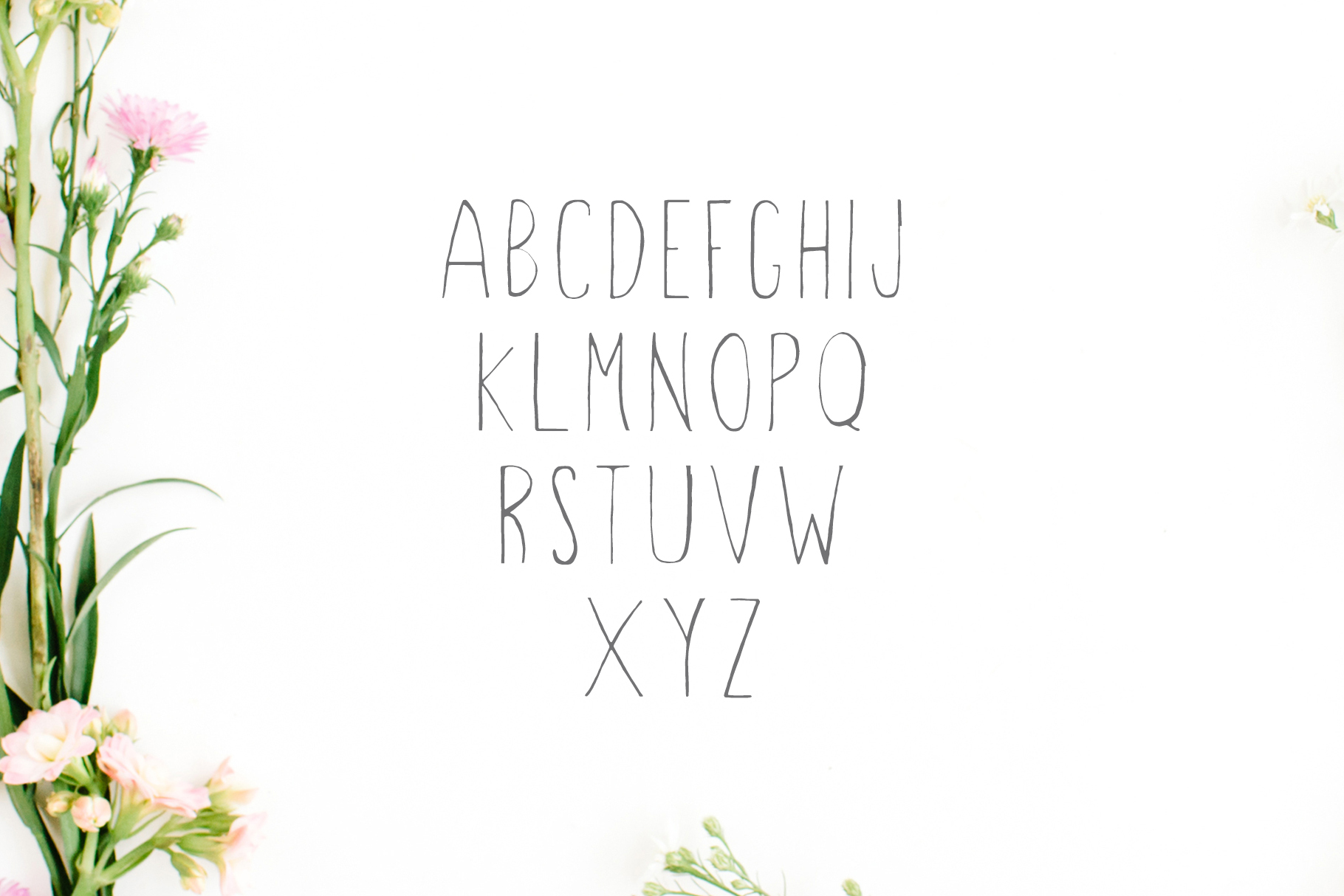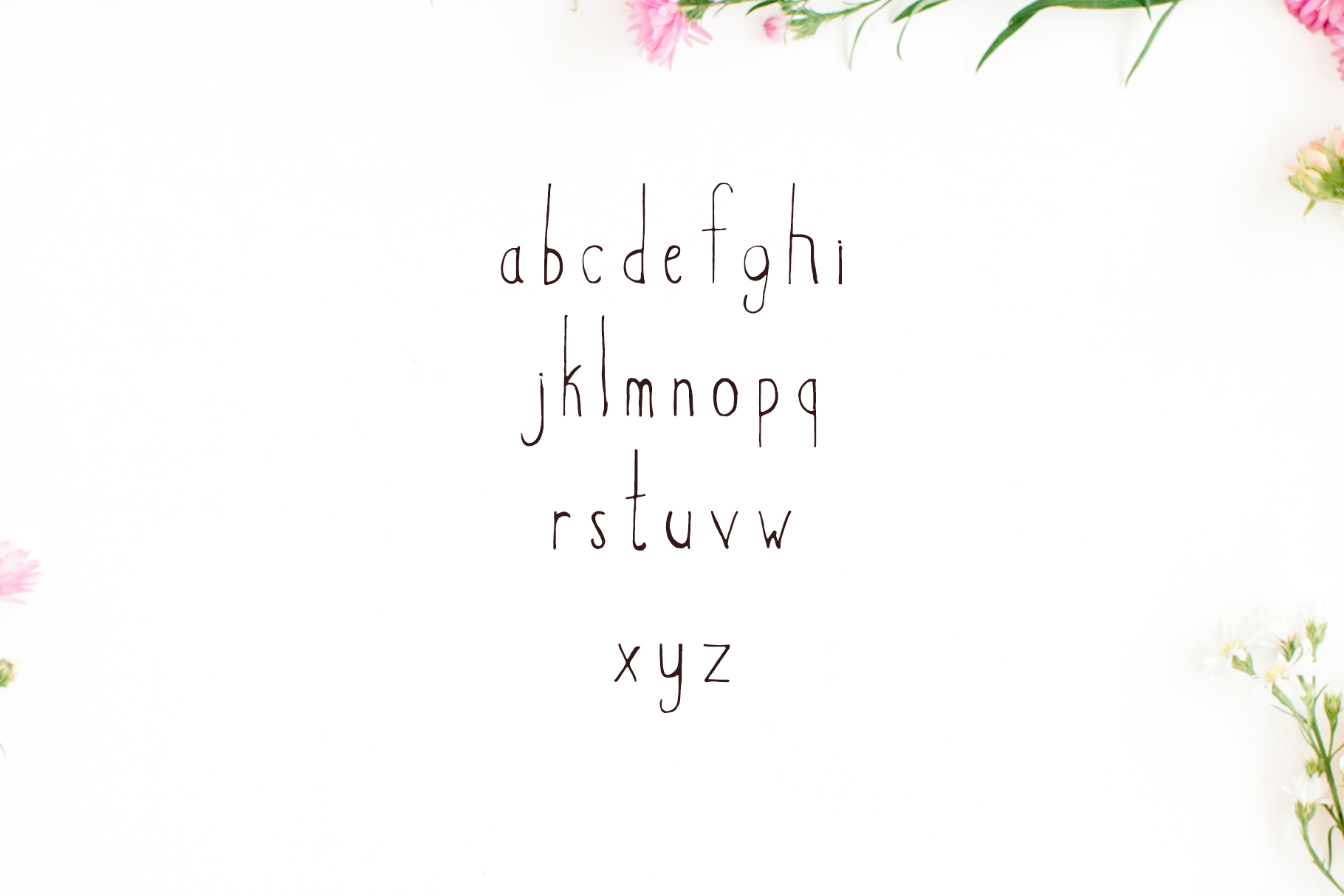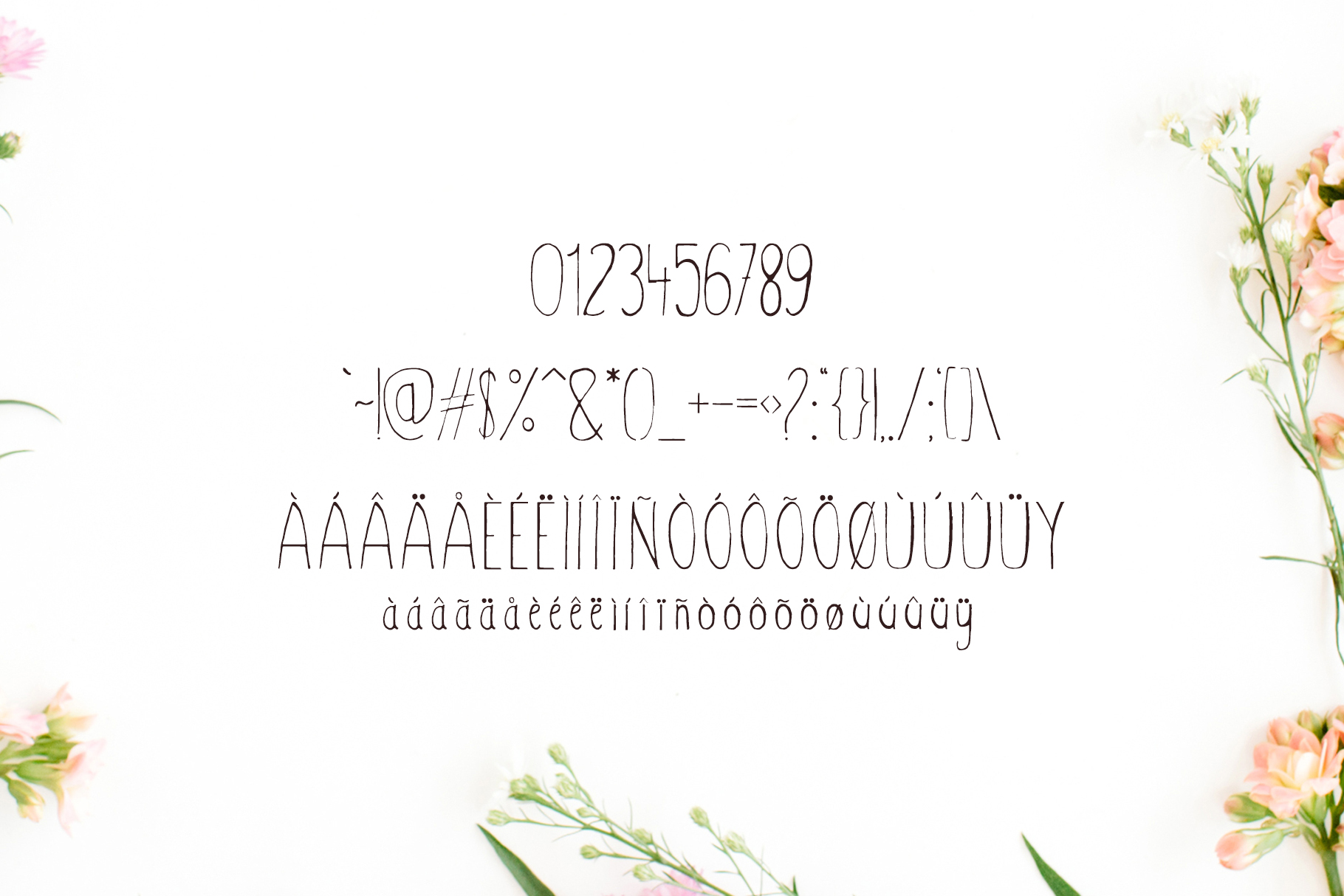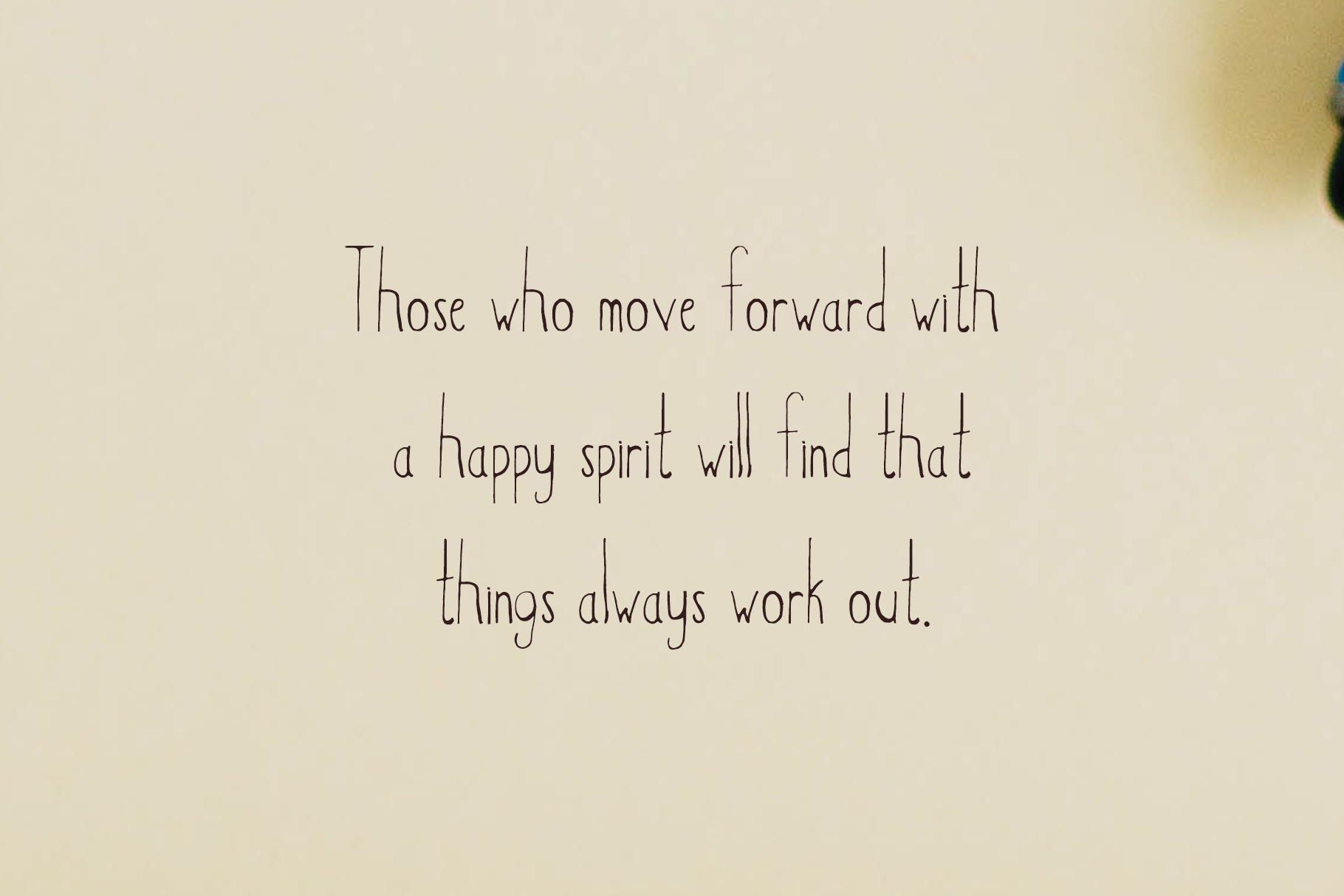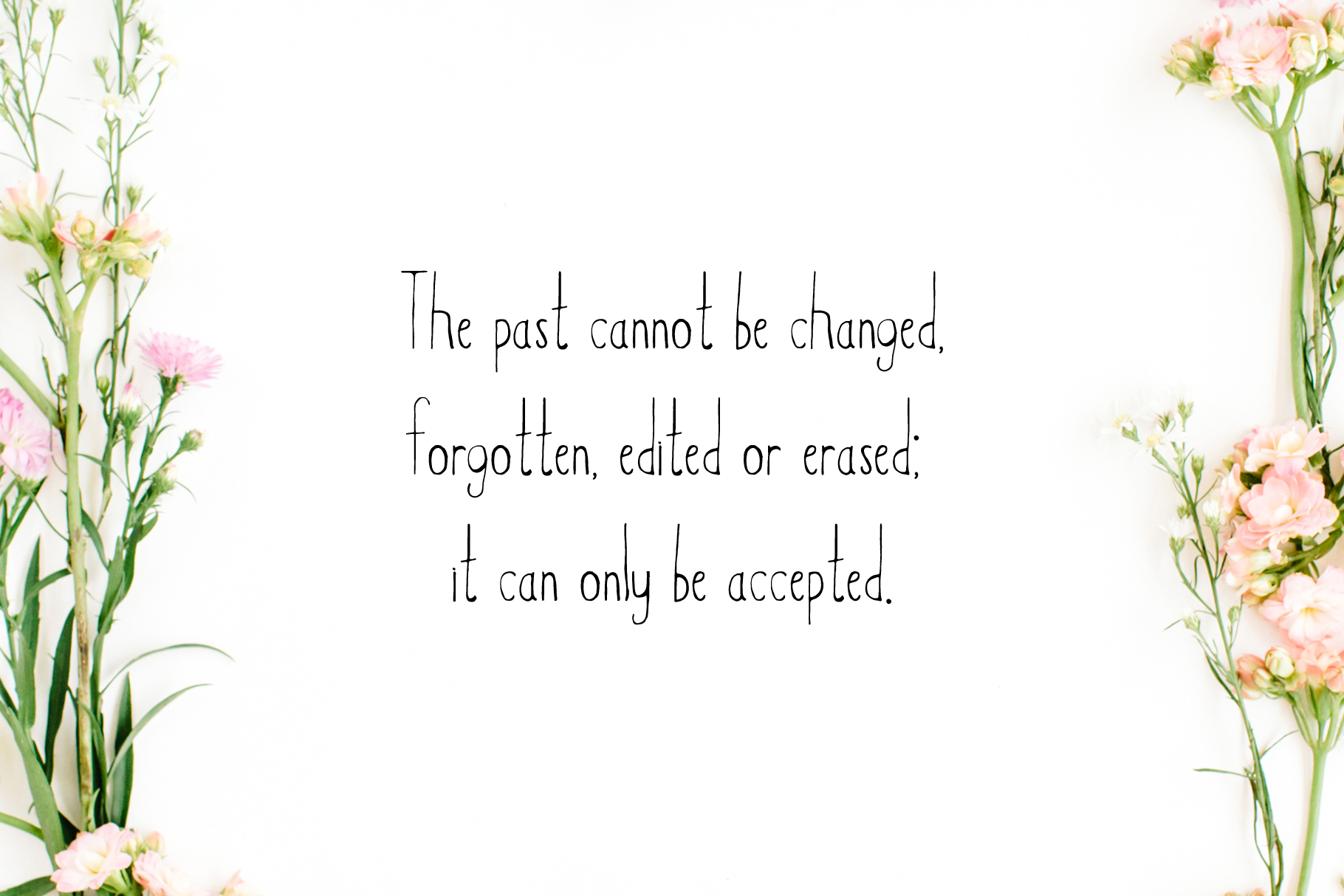
The Charming Hacca Font: A Designer’s New Best Friend
An Honest Review of Hacca Font
So, what makes Hacca font so special? Here’s my honest review:
- ✨ Its charming and simplistic sans serif design, perfect for lighthearted projects
- ✅ The handwritten texture that adds a touch of warmth and personality
- 💫 The clean yet scratchy and crafted appeal that makes it stand out from other fonts
- 🎨 Its versatility – Hacca font can be used for a wide range of designs, from crafts to digital projects
While Hacca font is amazing, it’s not perfect. Here are a few things to keep in mind:
- 🤔 It may not be the best choice for very formal or professional designs, as it has a more playful vibe
- ⚠️ Some of the letters may appear a bit irregular or imperfect, which can be a deliberate design choice but might not be suitable for all projects
The Story Behind Hacca Font
While the true story behind Hacca font remains a mystery, it’s easy to imagine that it was created by a designer who loves whimsical crafts and playful designs. Perhaps the designer was inspired by the imperfections and uniqueness of handwritten text, and sought to capture that charm in a digital font.
| Font Name | Hacca Font |
| Author | creativetacos |
Q: What type of projects is Hacca font best suited for?
A: Hacca font is perfect for lighthearted designs, such as crafts, party invitations, and whimsical digital projects.
Q: Is Hacca font available in different weights or styles?
A: Currently, Hacca font is available in a single weight, but its versatility and charm make it easy to use for a wide range of designs.